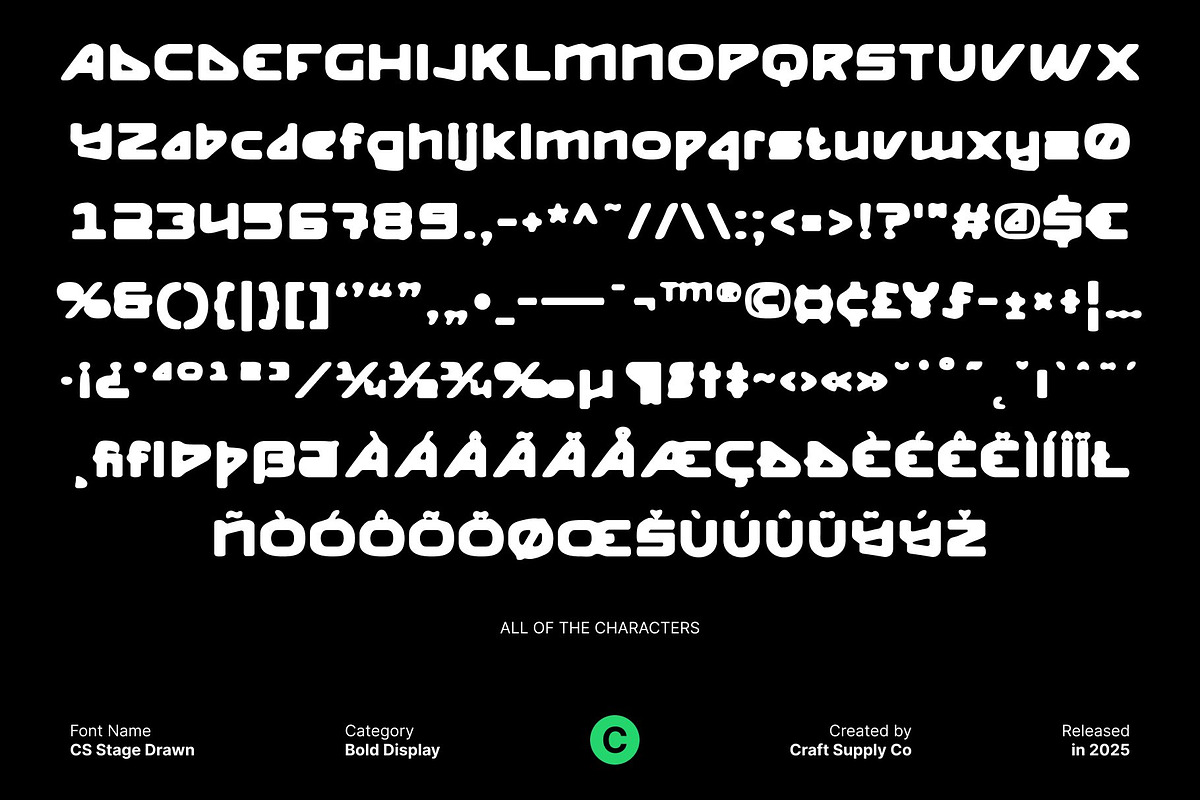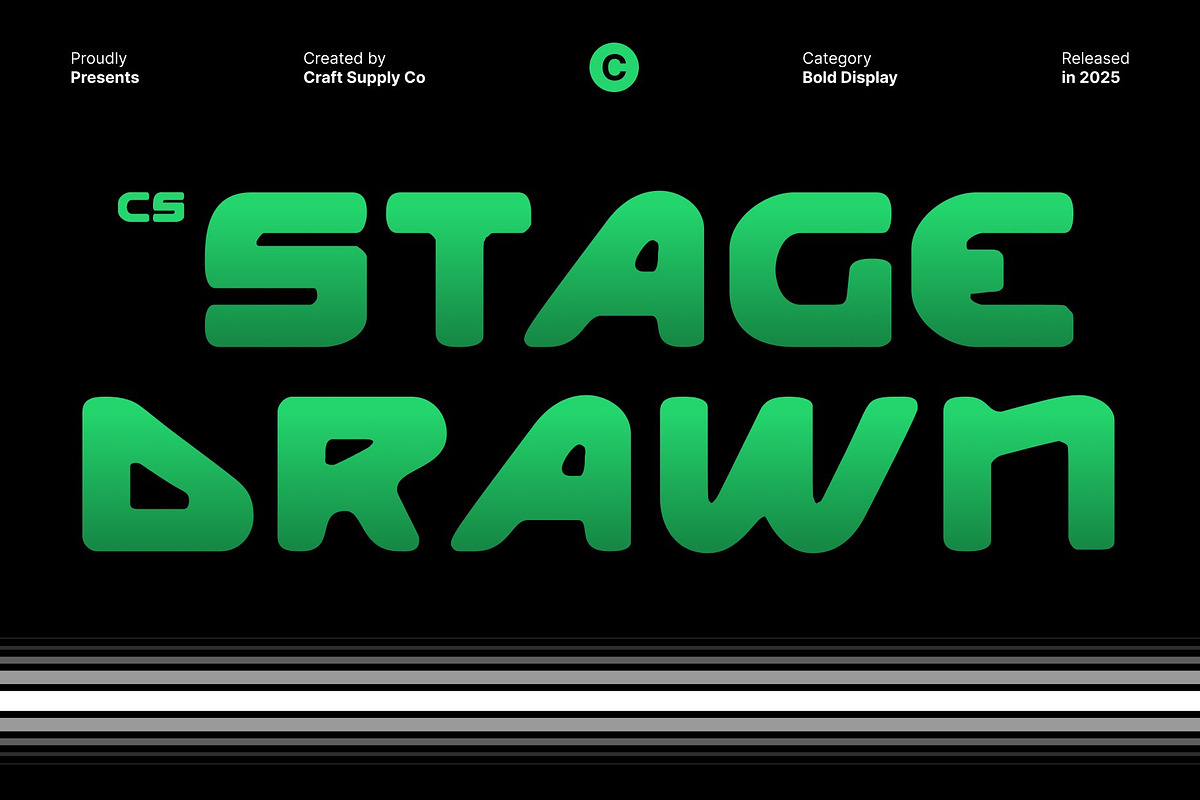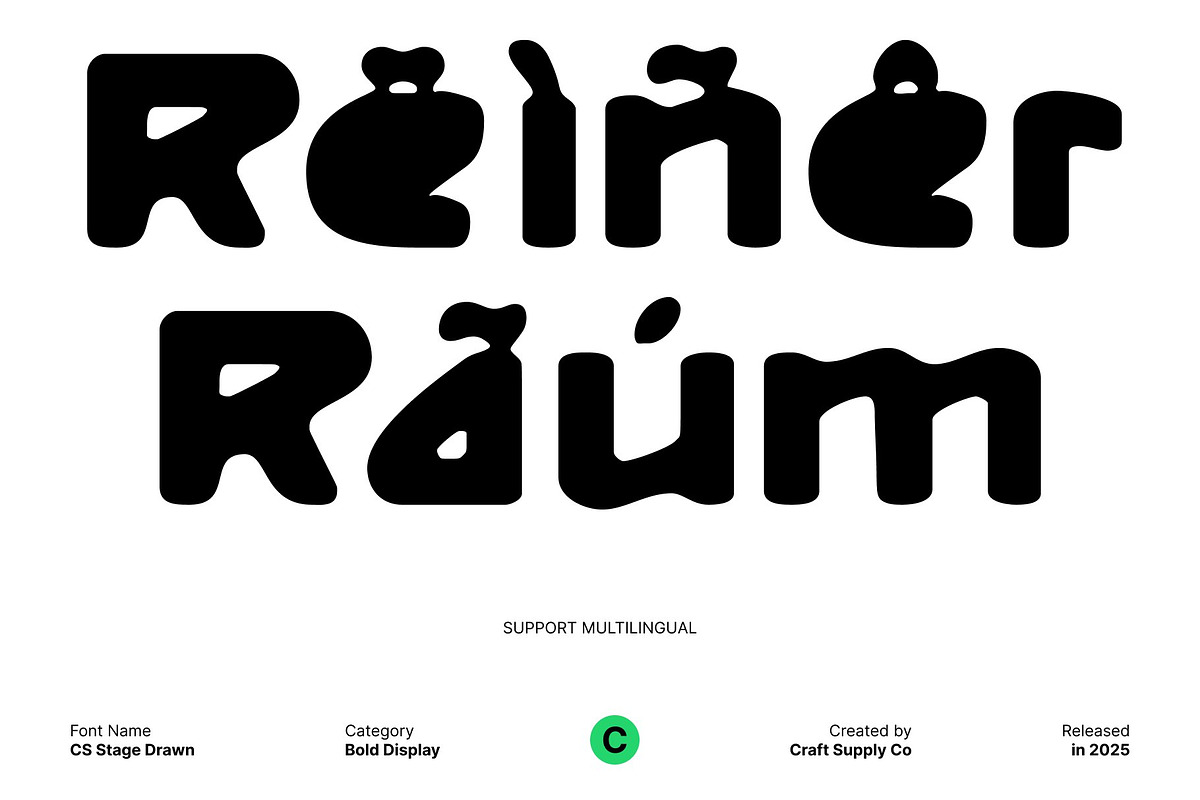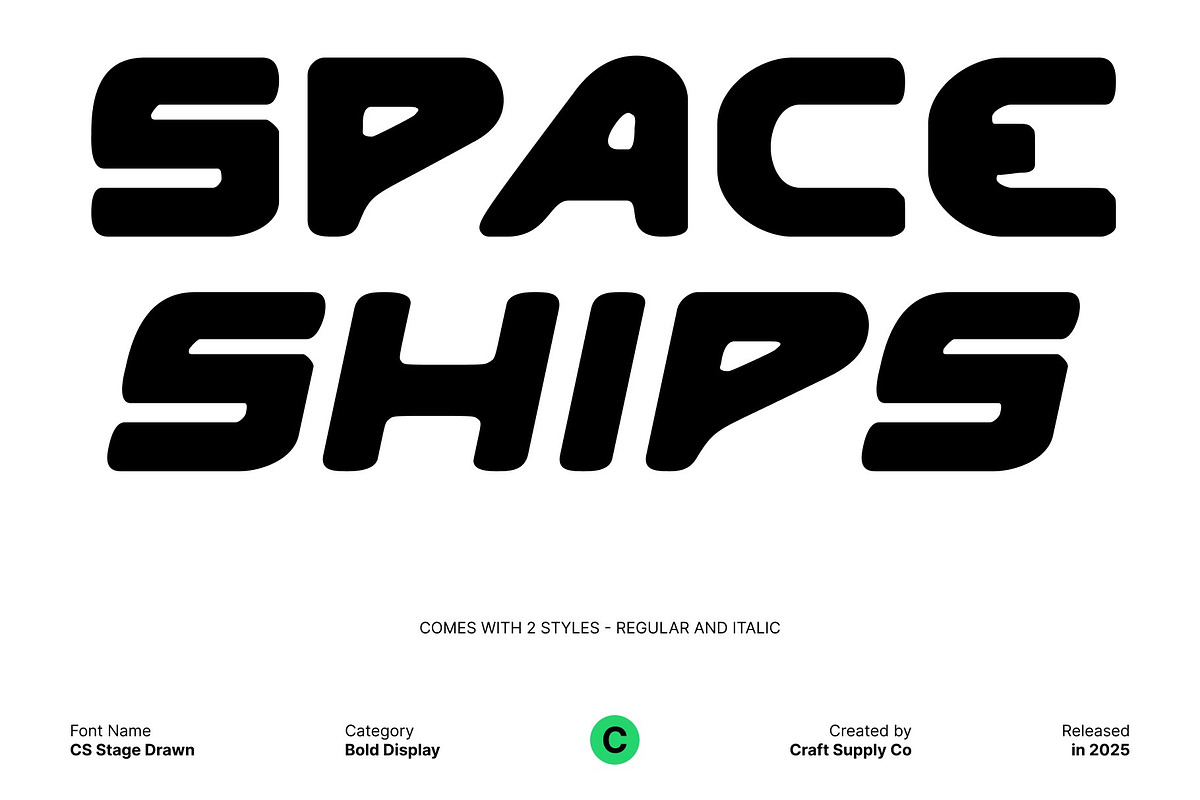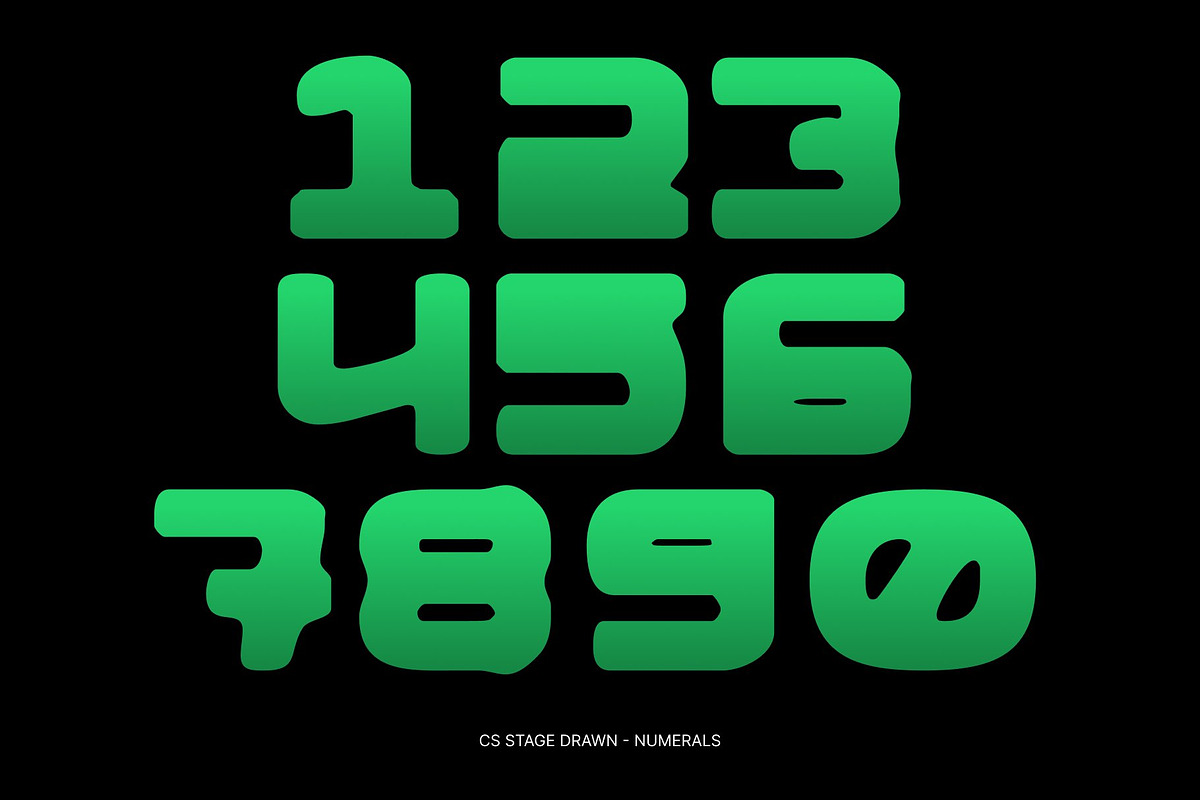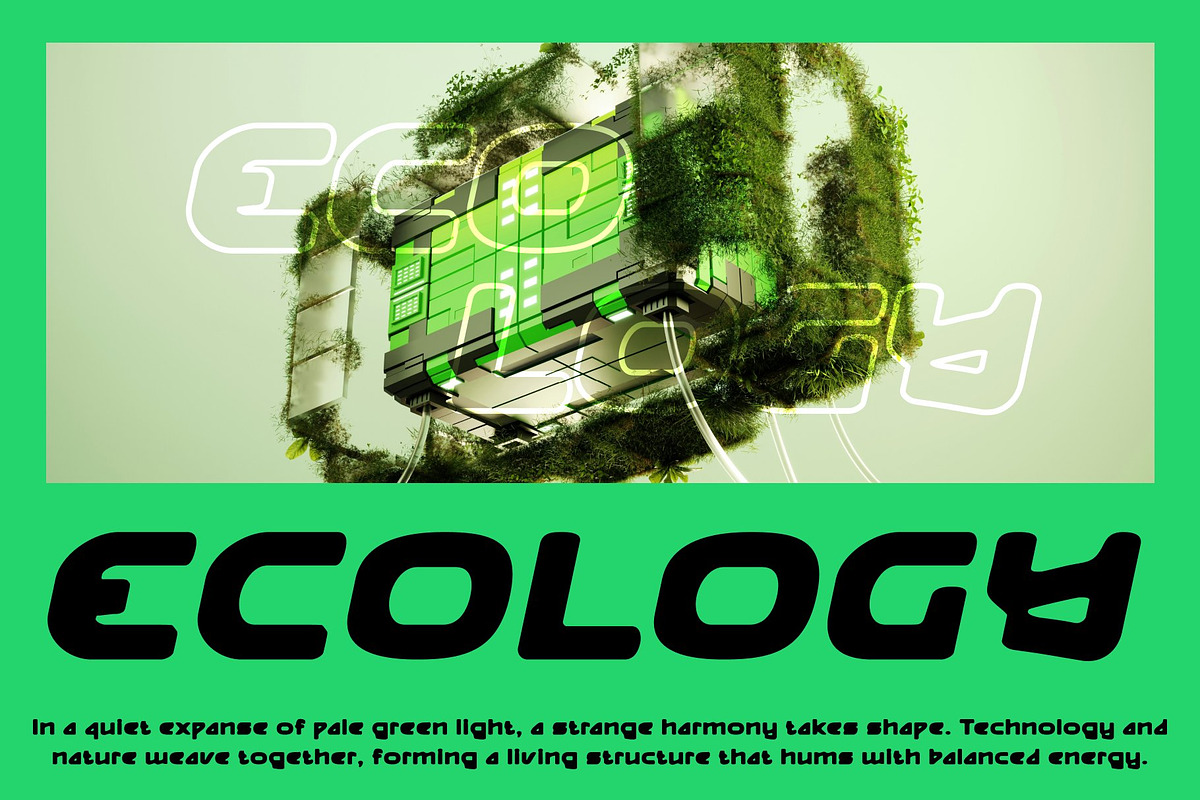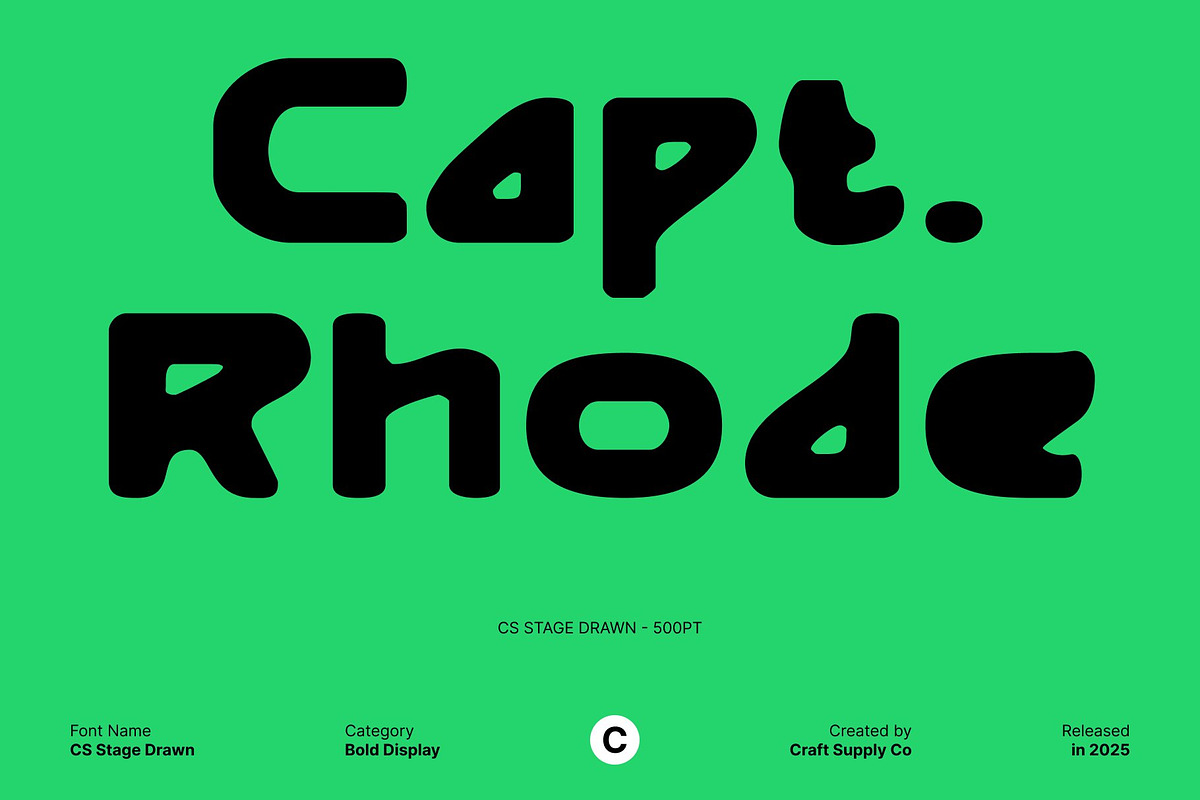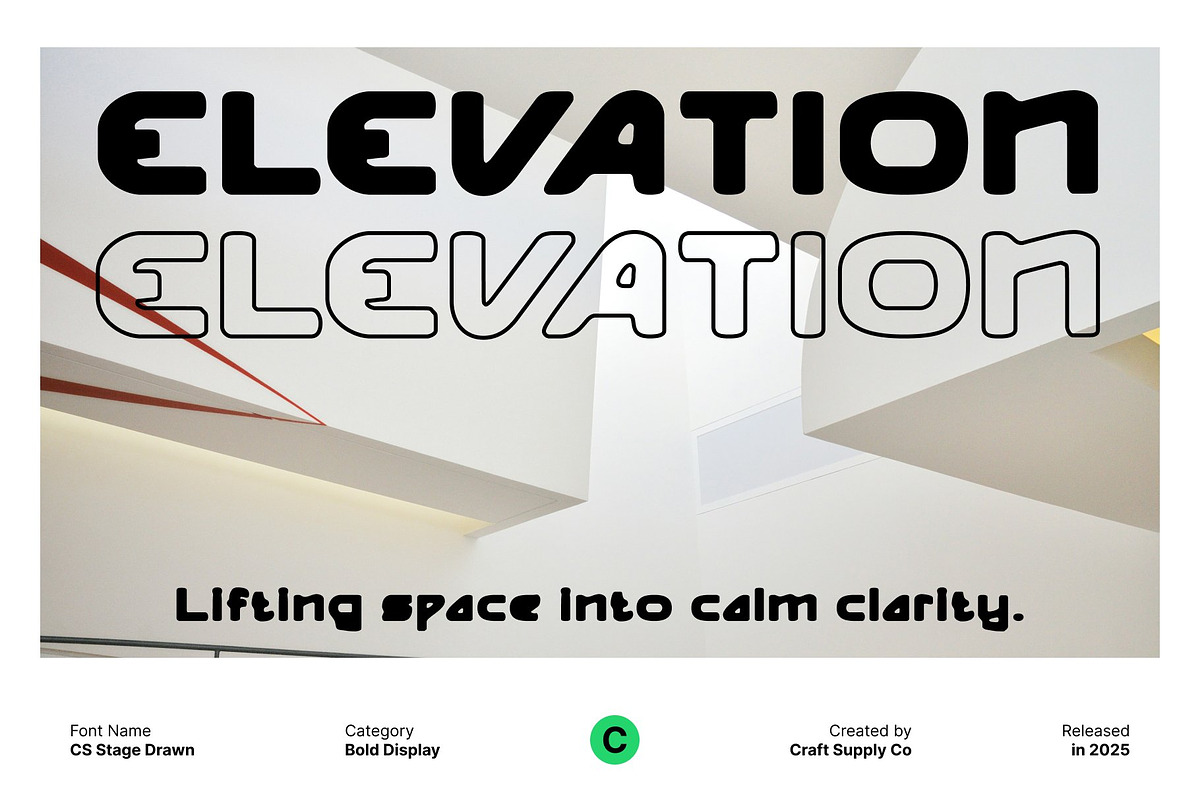
CS Stage Drawn
CS Stage Drawn – Futuristic Bold Hand-Drawn Sans Serif
Techno-Inspired Display Font with Dynamic Energy This is a bold and striking techno-inspired sans serif font that radiates modern energy. Its drawn effect introduces a handcrafted, futuristic flair, giving each character a distinctive personality that elevates any design. This font is perfect for projects that demand attention and a contemporary edge.
Bold Forms for Maximum Impact With strong, confident strokes, this font delivers high visual impact and readability. Its bold forms are ideal for headlines, logos, and poster designs, ensuring your message stands out in both digital and print mediums.
Futuristic Hand-Drawn Texture The drawn effect adds an artistic, handwritten quality to the font, infusing designs with a sense of creativity and innovation. Each letter balances precision with a human touch, creating a visually engaging and unique aesthetic.
Versatile for Modern Branding This font adapts seamlessly to a wide range of applications, from corporate branding and tech-focused projects to event posters and promotional materials. Its fusion of bold sans serif structure with futuristic drawn detailing makes it a go-to choice for designers seeking energy, personality, and modern sophistication.